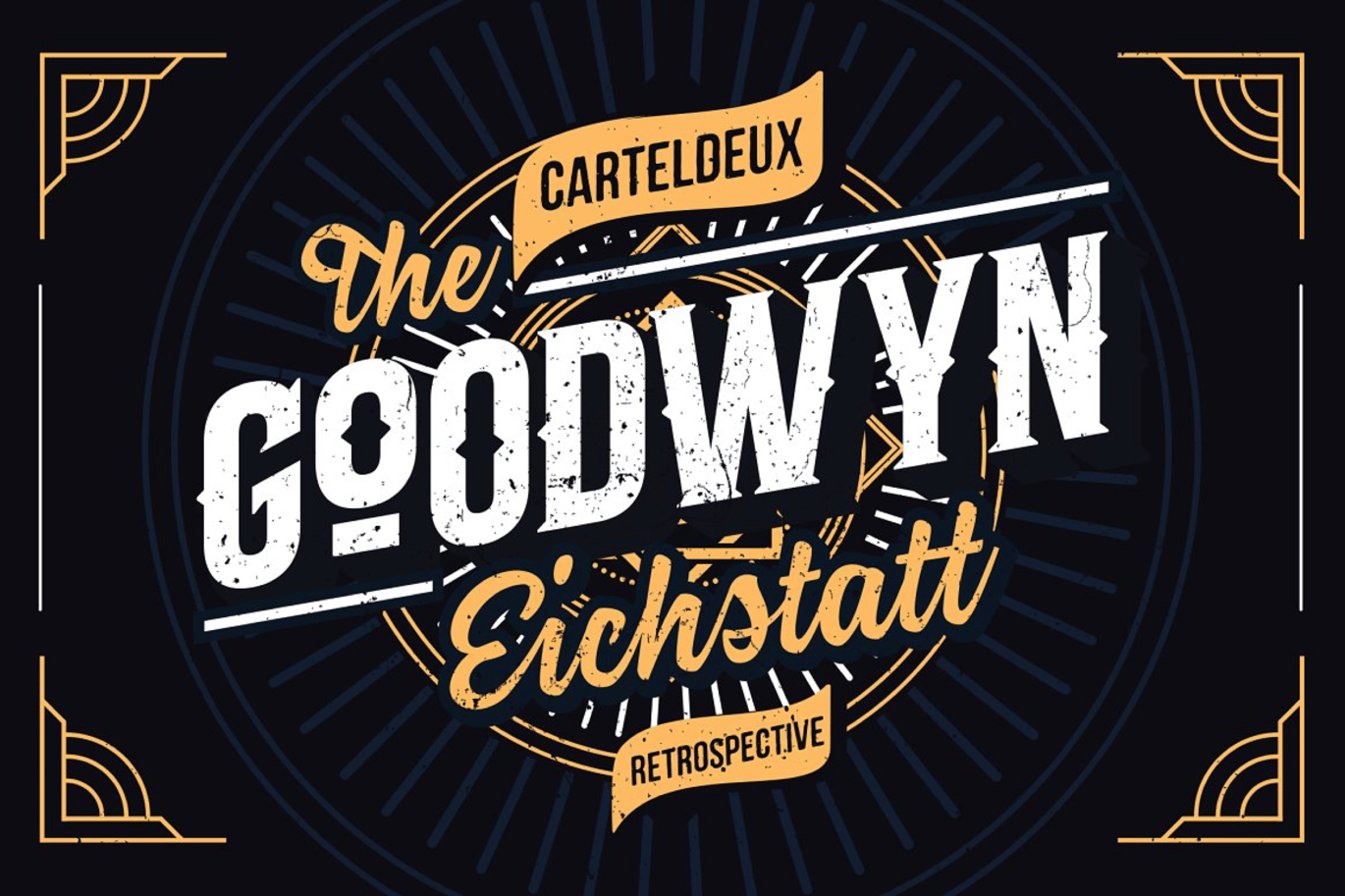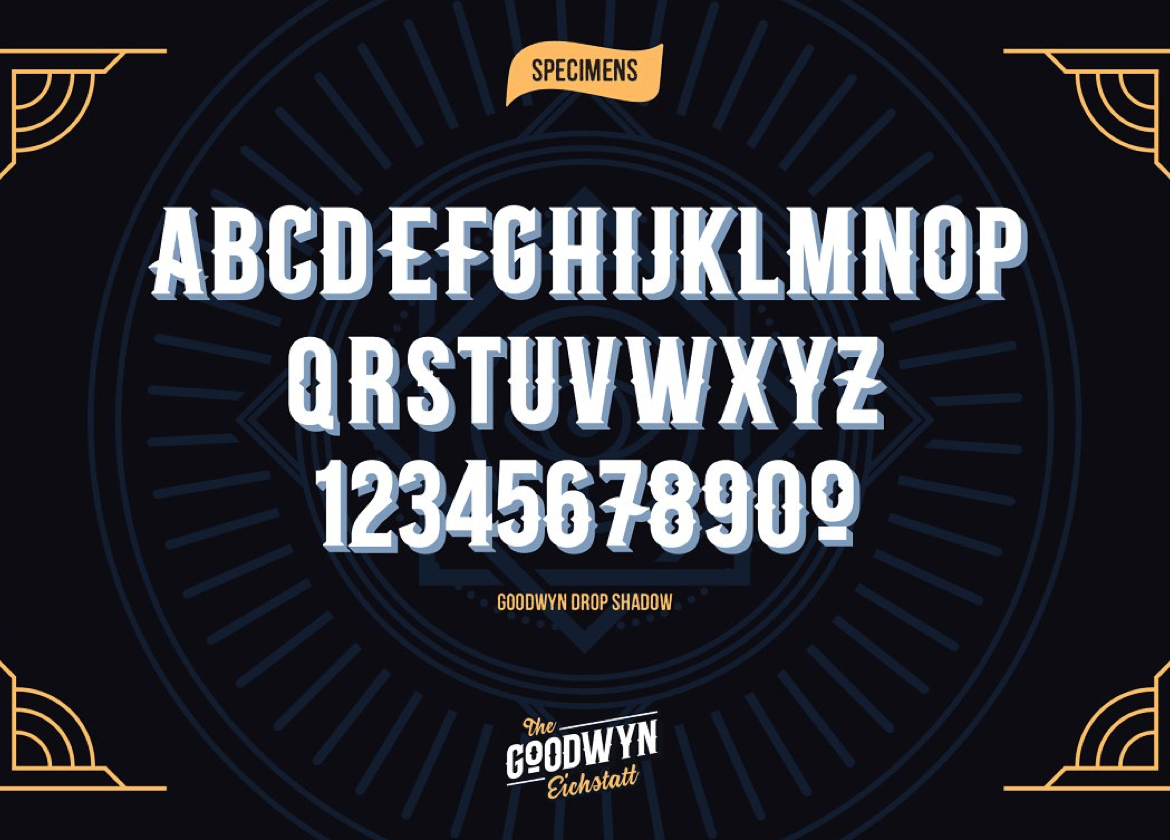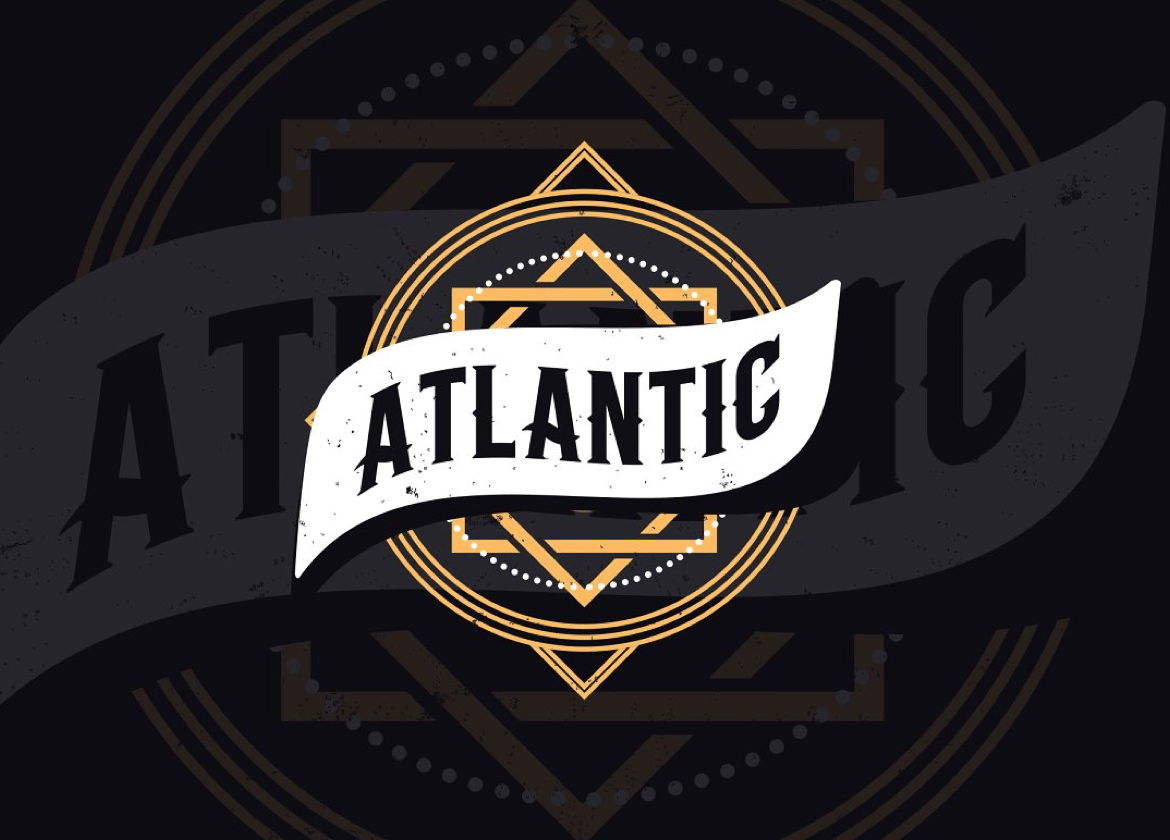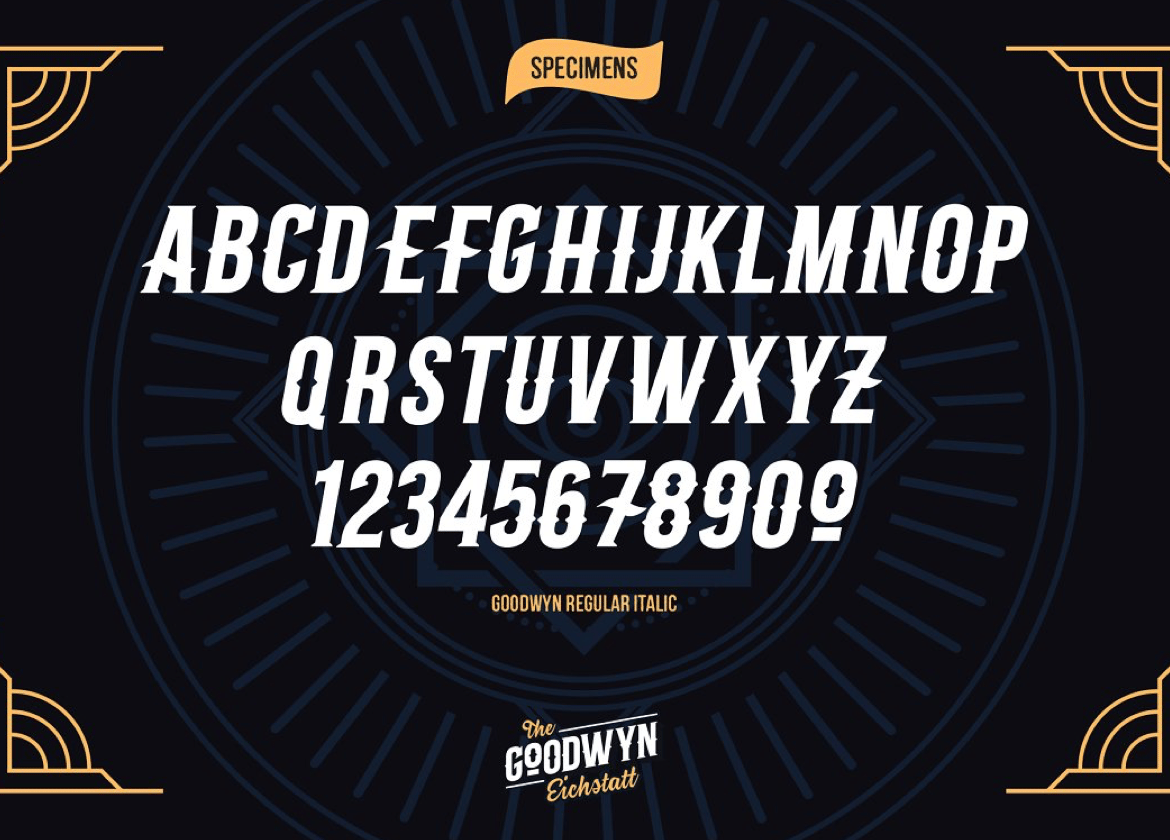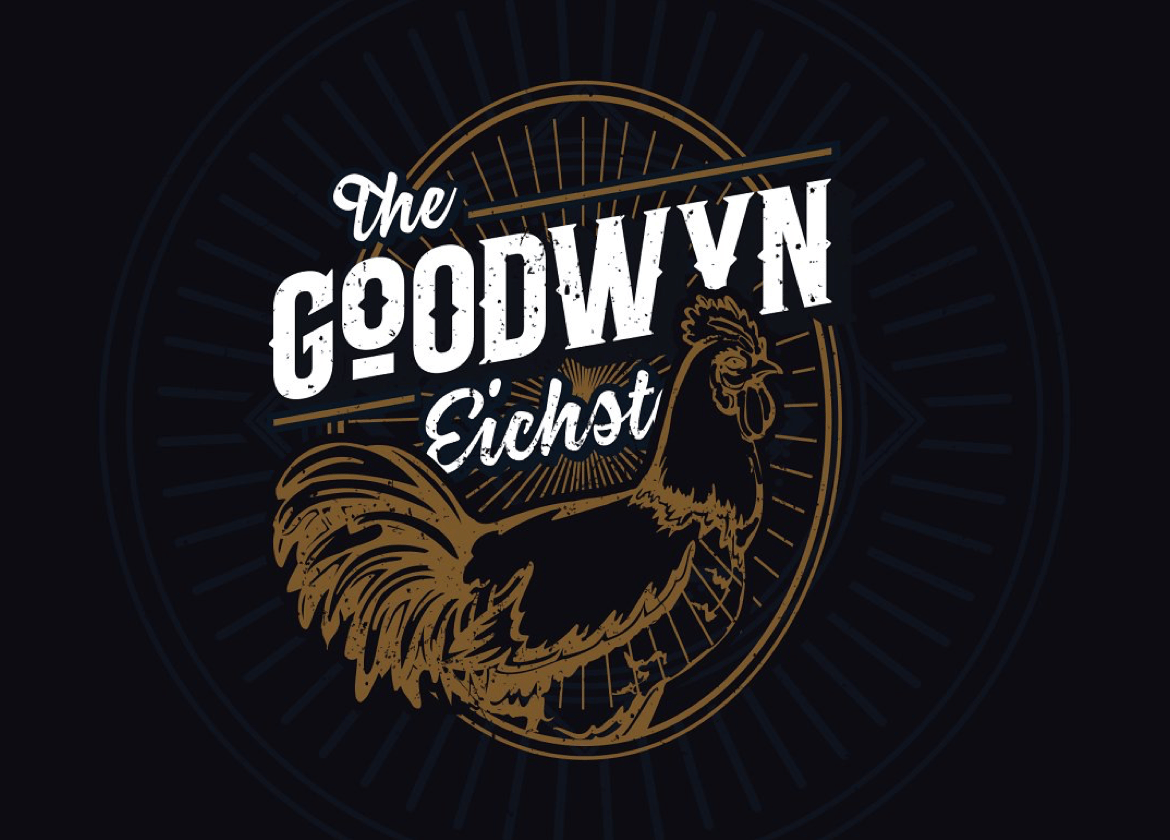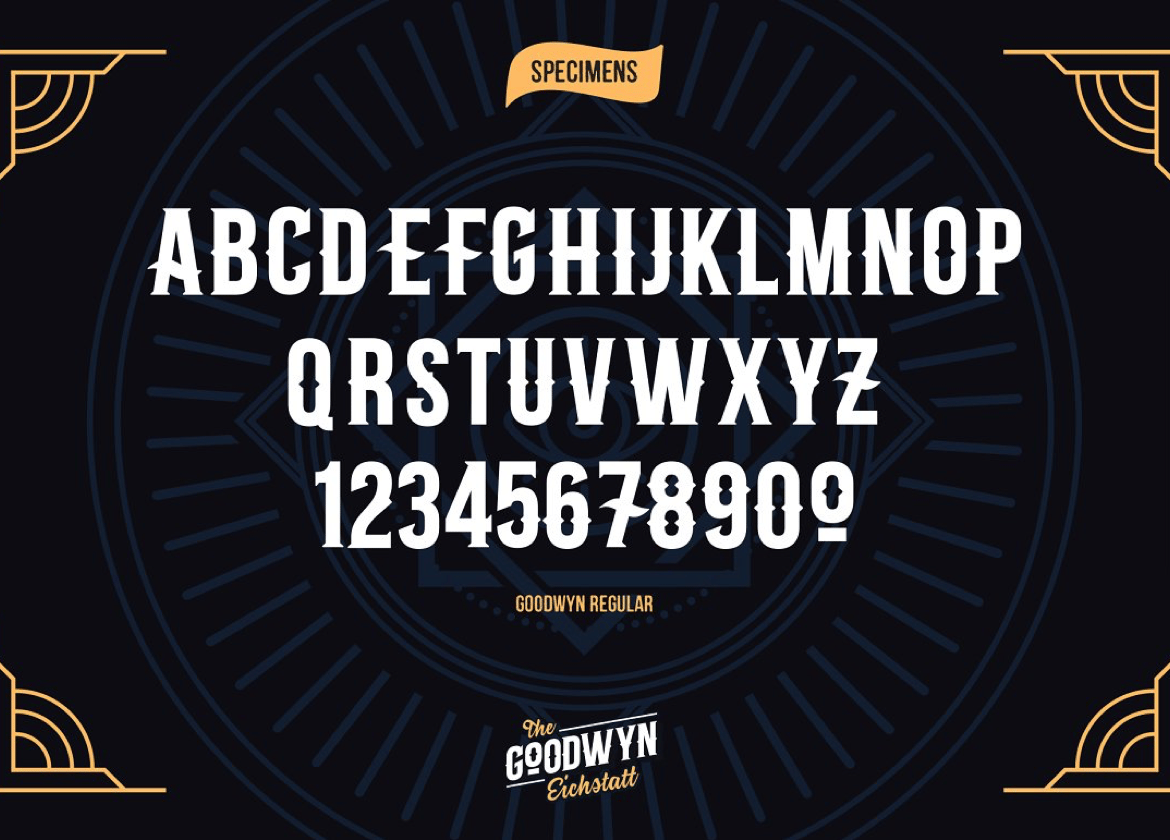
Goodwyn – Retro Fonts
This font inspired by the Retro & Vintage Era. It’s the combinations fonts include a script and Display with a super vintage style, also have a different style for each functionalities. To complete the set of fonts, Goodwyn offers 7 style in the family.
To make you project look more retro, we are providing you with a Drop Shadow style in the family. Simply type your words/brands text and ‘BAM!’ you now have a shadow. It’s typeface set is perfect for your retro label, logotype, T-shirt etc. All sets in this font also have webfonts. Make it easy for you to use it directly on the web that you have developed.